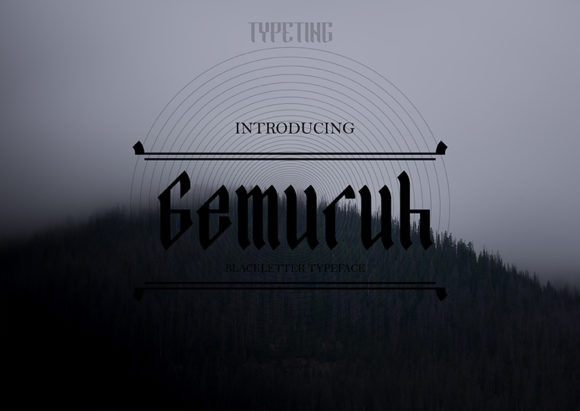
Prepare yourself to be mesmerized by the enchanting Gemuruh font, a captivating blackletter typeface that combines timeless elegance with a refreshing modern twist. Crafted with meticulous attention to detail by the talented artisans at Typeting Studio, this font exudes an aura of sophistication that is sure to leave a lasting impression.
Embark on a typographic journey like no other as you explore the mesmerizing curves and sharp edges of Gemuruh. Its unique letterforms, reminiscent of ancient manuscripts, evoke a sense of history and tradition while maintaining a distinctively contemporary aesthetic. Unleash your creativity and let your imagination soar as you discover the endless possibilities this font offers.
With its versatility, Gemuruh effortlessly adapts to a myriad of design projects. Its bold and striking presence commands attention on posters and flyers, while its delicate intricacies add a touch of elegance to branding and logo designs. Let Gemuruh elevate your packaging designs, transforming ordinary products into objects of desire. Its captivating charm is sure to leave a lasting impression on your customers, building a strong connection between your brand and their hearts.
Delve into the world of editorial design and let Gemuruh bring your words to life. Its captivating letterforms enhance the impact of headlines and articles, drawing readers in and captivating their attention. Create stunning invitations and greeting cards that exude a sense of timeless sophistication. With Gemuruh, every word carries weight and meaning, leaving an unforgettable mark on the recipient's memory.
Embrace the digital realm and let Gemuruh enhance your online presence. Its crisp and clear lines translate beautifully to web design, adding a touch of elegance to your website or blog. Create social media posts that captivate audiences and leave a lasting impression. The unique charm of Gemuruh will set your brand apart, attracting followers and driving engagement.
Take your artistic endeavors to new heights with Gemuruh. Its versatility extends to the world of art and illustration, adding a touch of intrigue and mystery to your creations. Whether you're designing posters for exhibitions or creating digital masterpieces, Gemuruh will elevate your work, captivating viewers and leaving them in awe of your talent.
Unlock the boundless potential of Gemuruh today and embark on a creative journey that knows no limits. Its enchanting beauty and endless versatility will transform your designs, captivating audiences and leaving a lasting impression. Embrace the power of this remarkable blackletter font and watch as your creative vision comes to life.